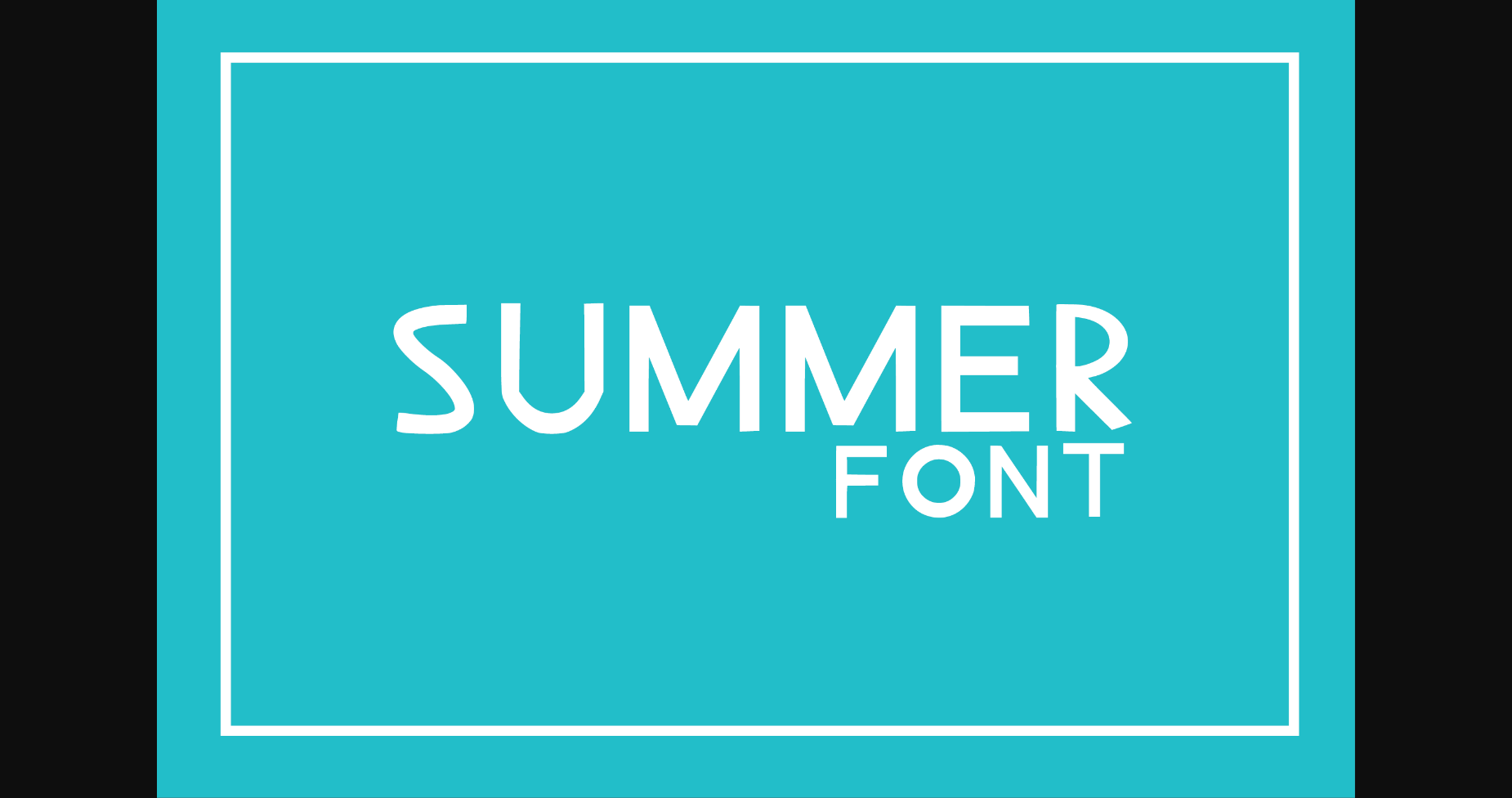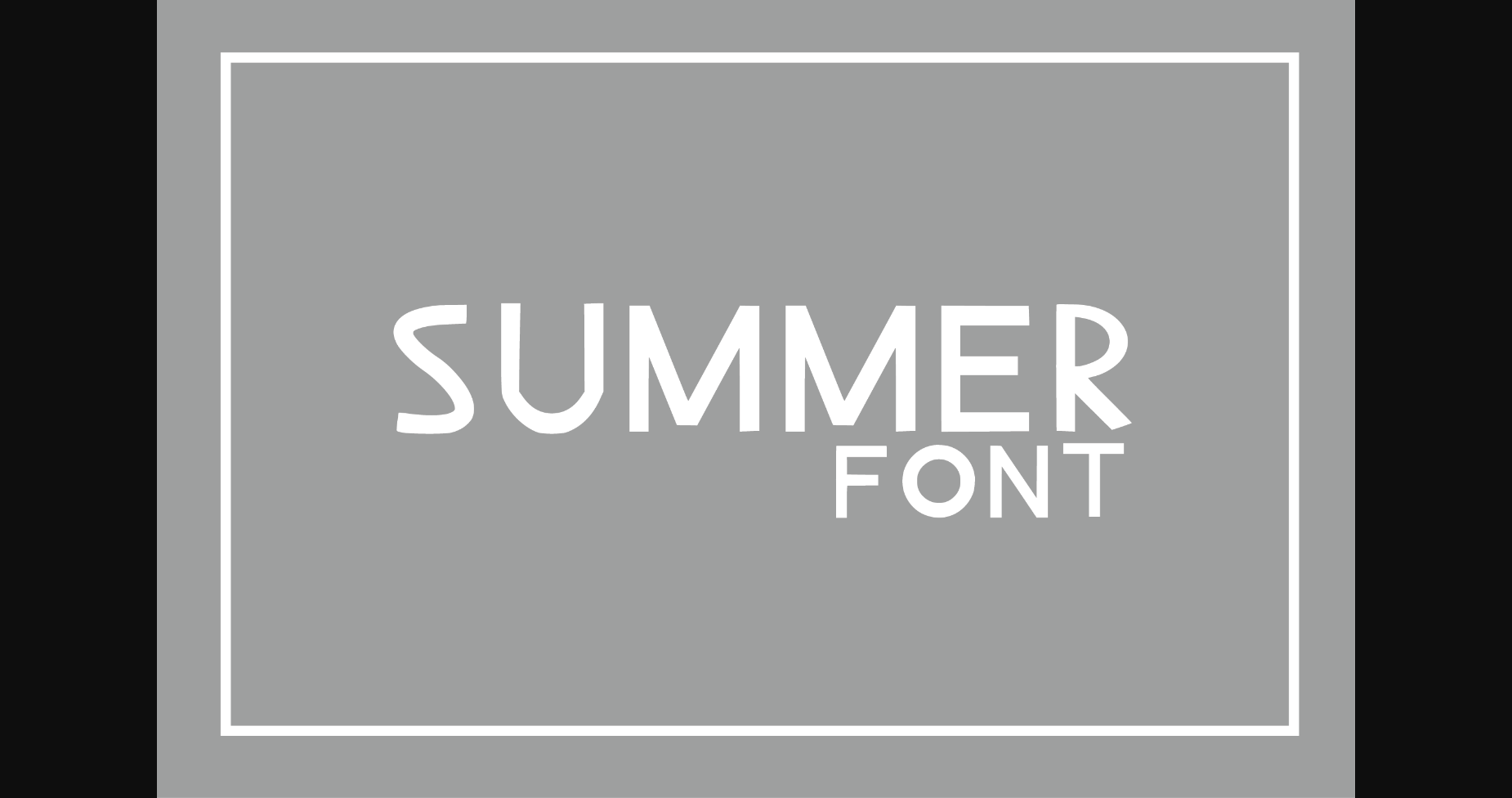
HomeSans Serif FontsSummer Font Sans Serif Fonts Summer Font FacebookXPinterestWhatsApp 1 of 4 ... Summer Font Poster 2... Summer Font Poster 3... Summer Font Poster 4... About Summer Font Summer is a fun and quirky handwritten sans-serif font with an irregular baseline. Add it to your crafty ideas and enjoy the results! DOWNLOAD NOW People also explored Flower Vibes Font Mount Font Belinday Font Rich Font Jessie Odelya Font Breast Cancer Font Skel Bone Duo Font Star and Bear Font Lady Writer Font 393 0 TagsSummerSummer Font Previous articleMusont FontNext articleRetro Records Font LEAVE A REPLY Cancel reply Comment: Please enter your comment! Name:* Please enter your name here Email:* You have entered an incorrect email address! Please enter your email address here Website: Save my name, email, and website in this browser for the next time I comment. Personal Use Free Latifah Personal Use Free Read more about this font Rozalyn Personal Use Free Read more about this font Royal Bengal Tiger Personal Use Free Read more about this font Screengem Personal Use Free Read more about this font BLOG Free vs Paid Fonts: Why Investing in Premium Fonts Is Worth It Free vs Paid Fonts: Why Premium Fonts Are Worth It in 2025 The debate of free vs paid fonts continues in the design world. While... Fonts That Capture the Spirit of New York City Where to Buy American Fonts Online in 2024 Transform Your Website: Elevate Your Typography with 7 Best Web Font Generators